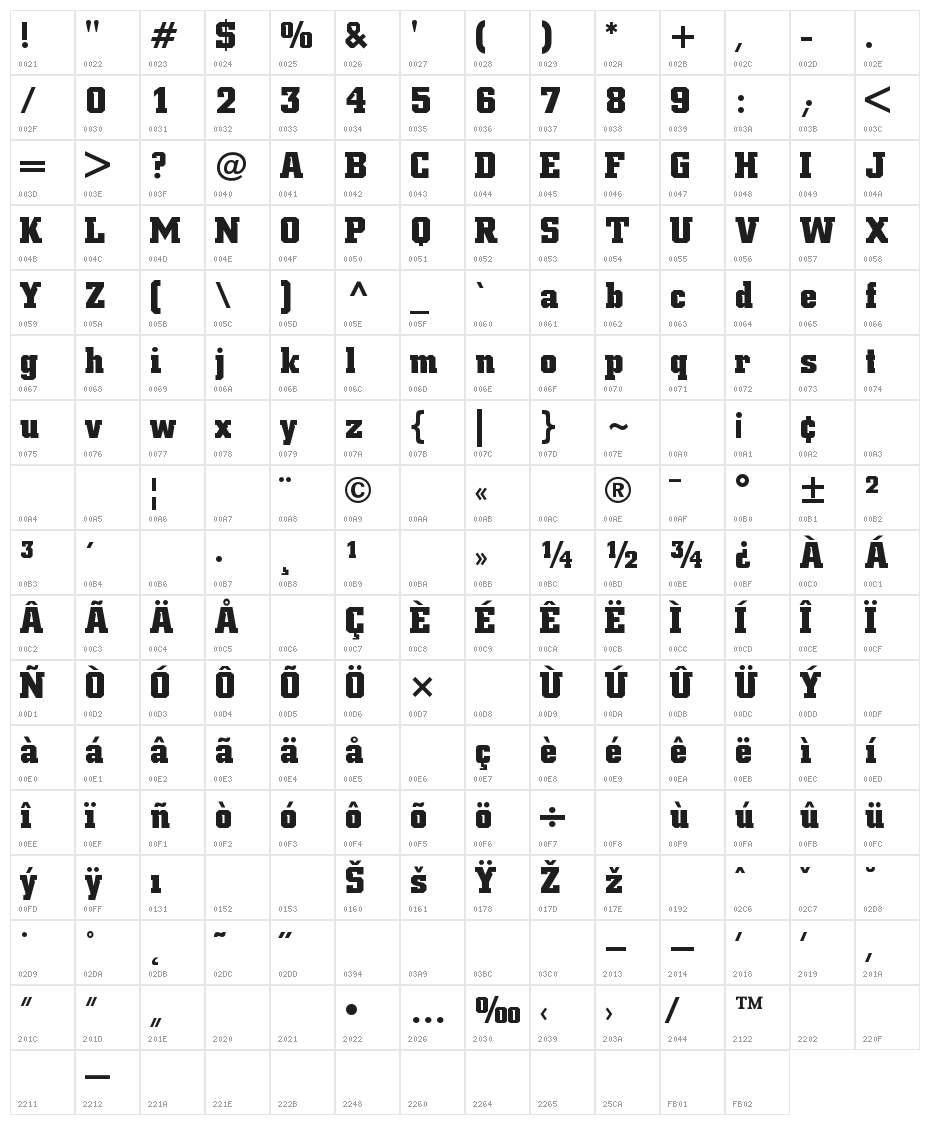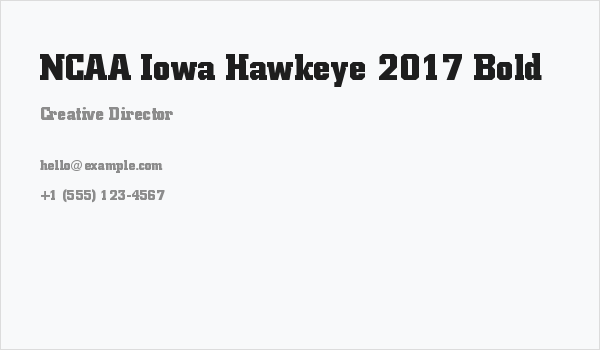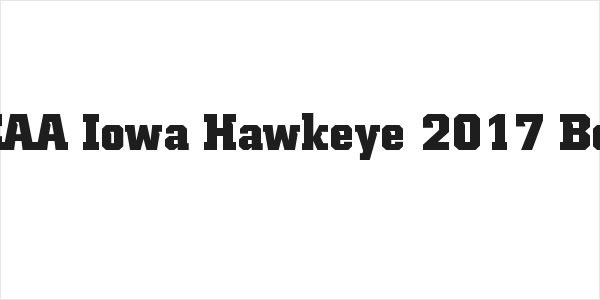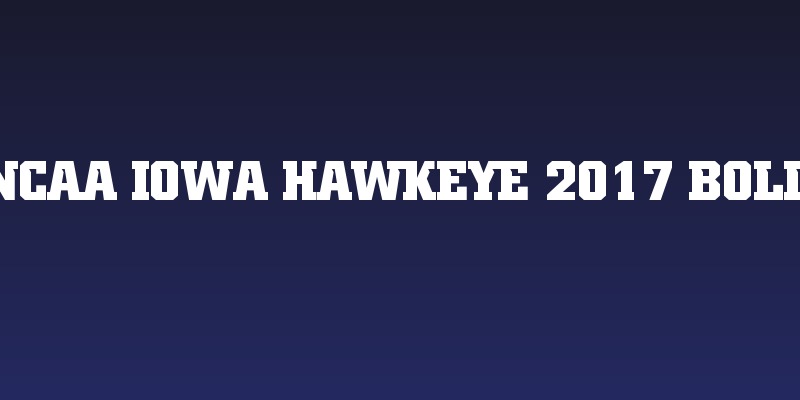
NCAA Iowa Hawkeye 2017 Bold Font
NCAA Iowa Hawkeye 2017 Bold Description
This bold and impactful font features strong, block-like characters with a distinct presence. The uppercase letters are particularly robust, with squared edges and a solid structure that conveys strength and stability. The lowercase letters maintain this boldness while offering a slightly more compact form. Numbers and special characters are equally bold, ensuring consistency across all text elements. The font's style is reminiscent of athletic or collegiate themes, making it ideal for projects that require a sense of power and tradition.